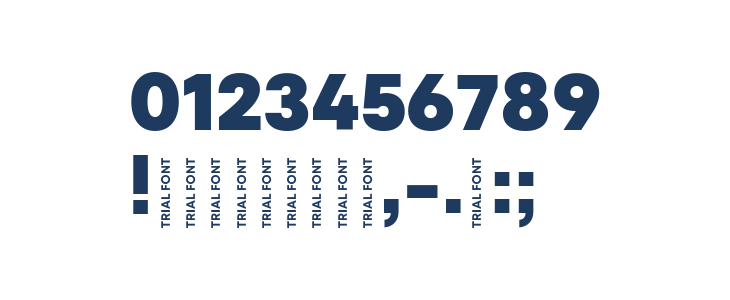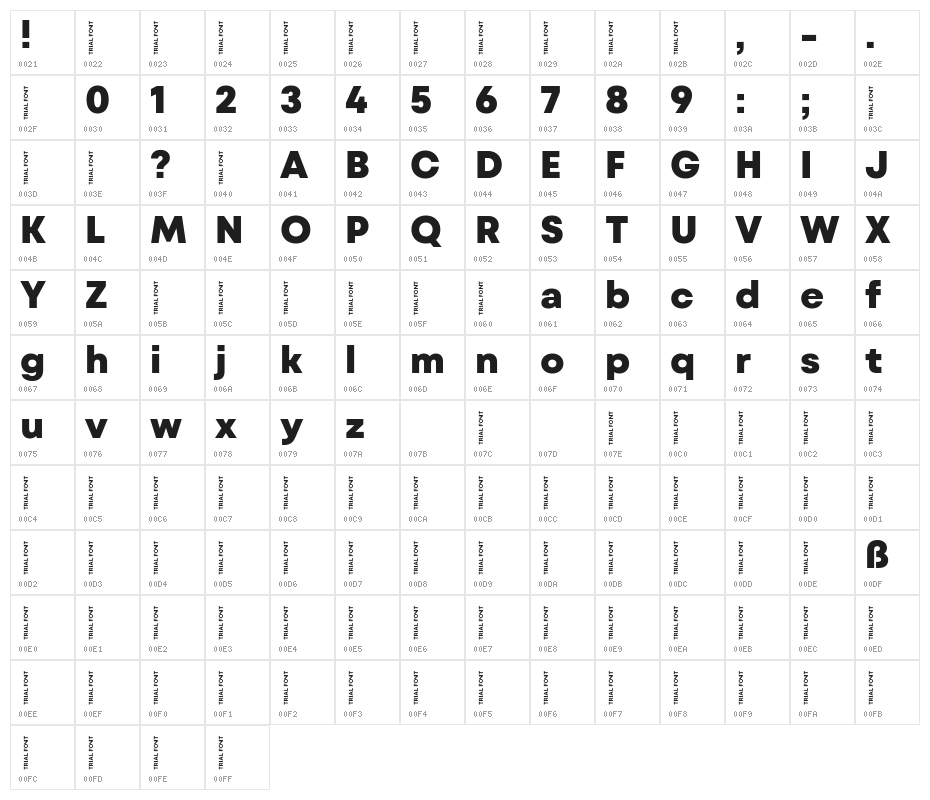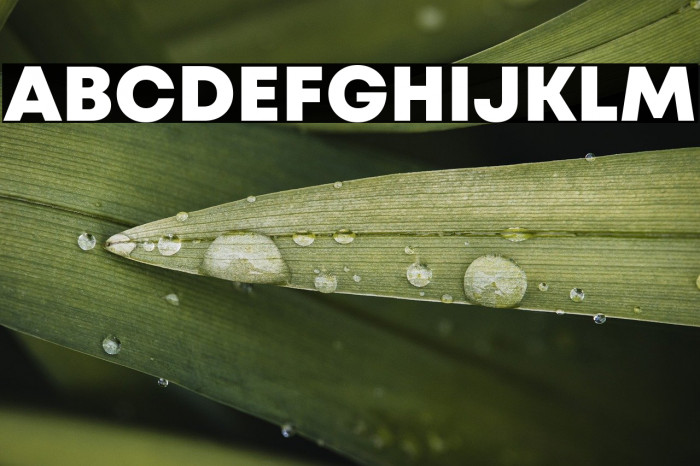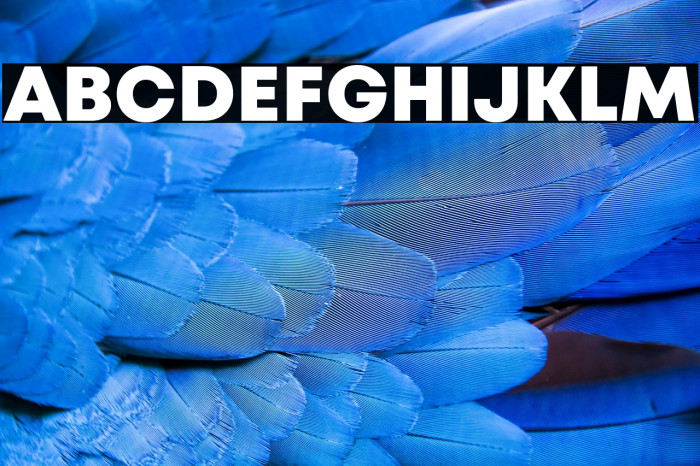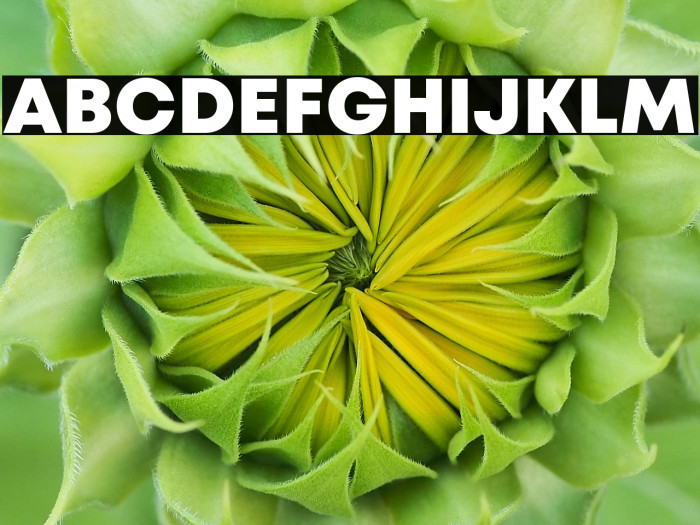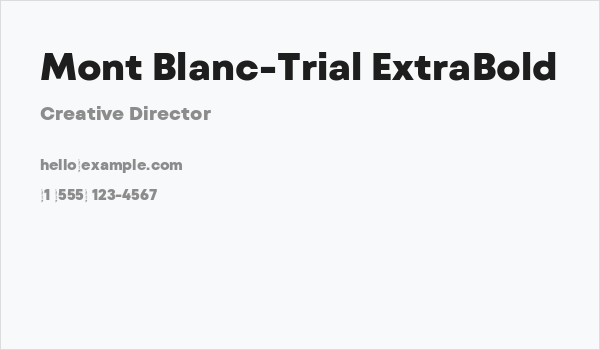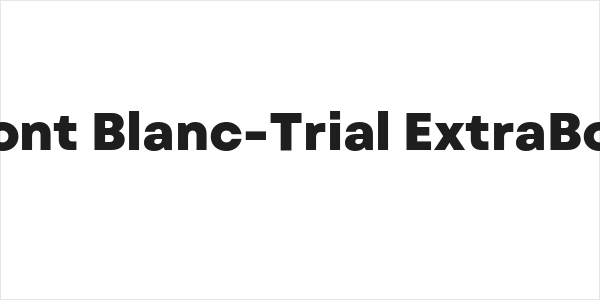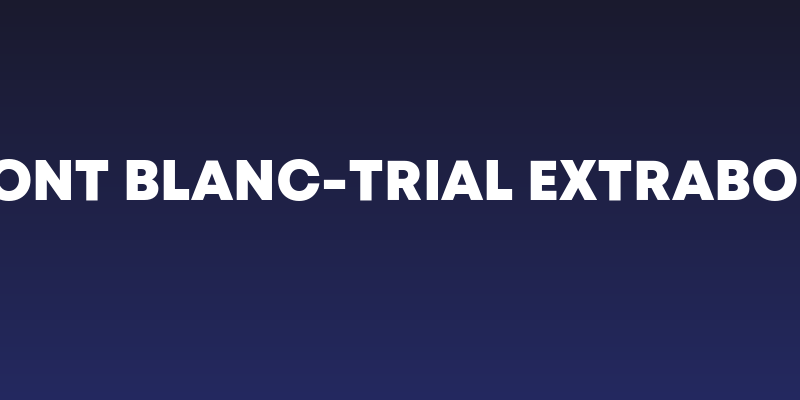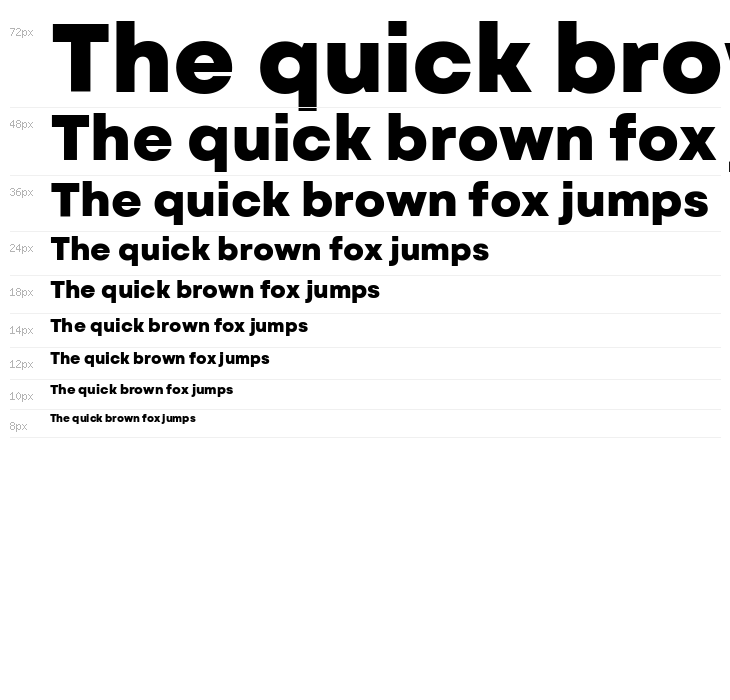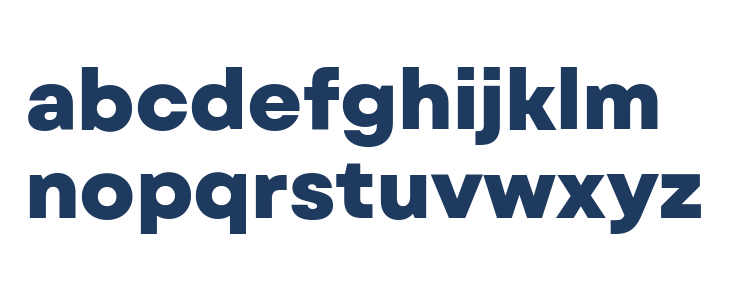
Mont Blanc-Trial ExtraBold Font
Mont Blanc-Trial ExtraBold Description
This font features a bold and robust design with a strong presence. The characters are uniformly thick, providing a sense of stability and confidence. The uppercase and lowercase letters are well-proportioned, with rounded edges that soften the overall look. The numbers are clear and easily distinguishable, making them suitable for various applications. The special characters maintain the same boldness, ensuring consistency across all elements. This font is ideal for making impactful statements and grabbing attention.
| Proposed Projects | Ideal for branding, headlines, posters, and advertising where a strong impact is needed. |